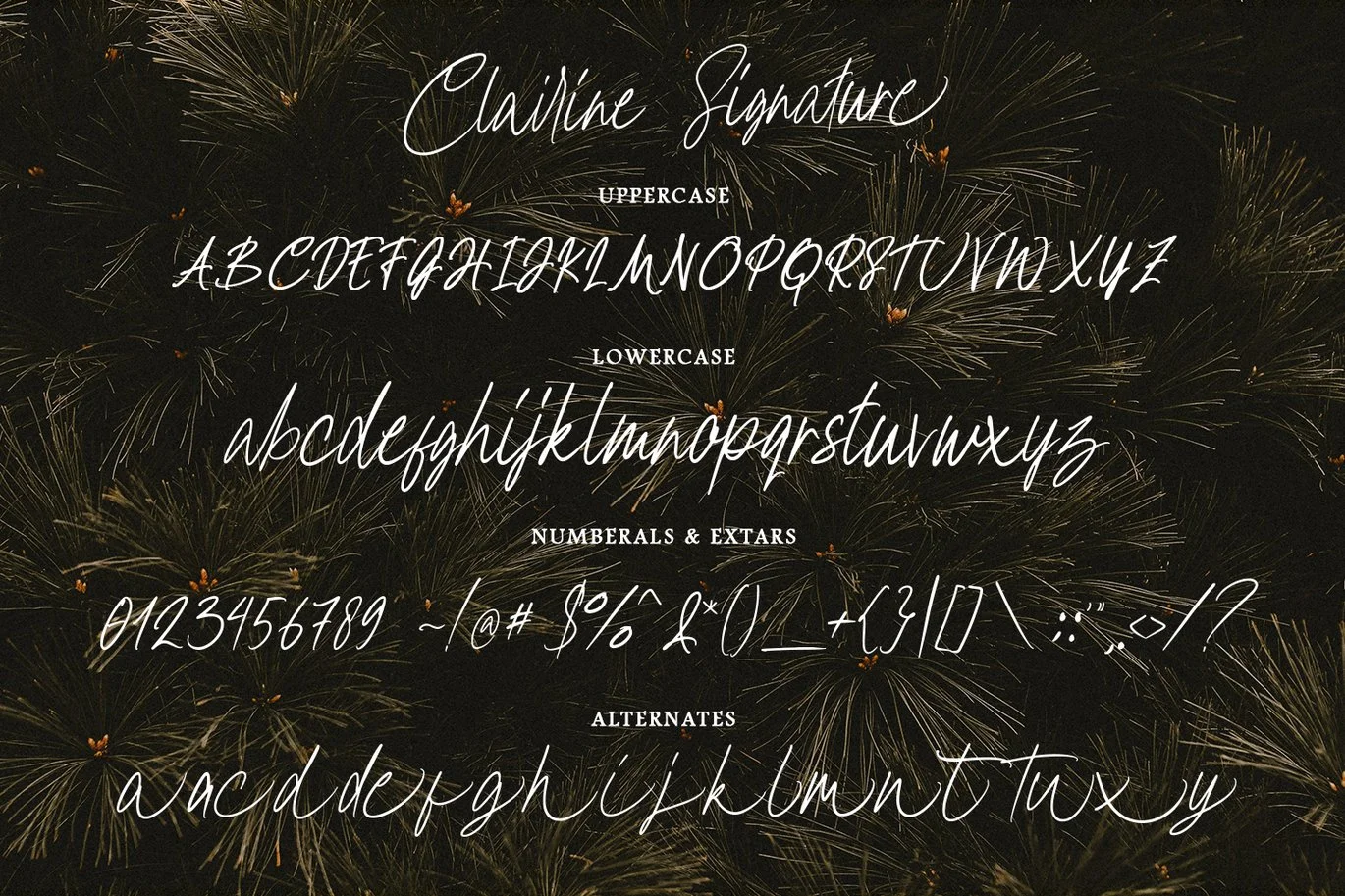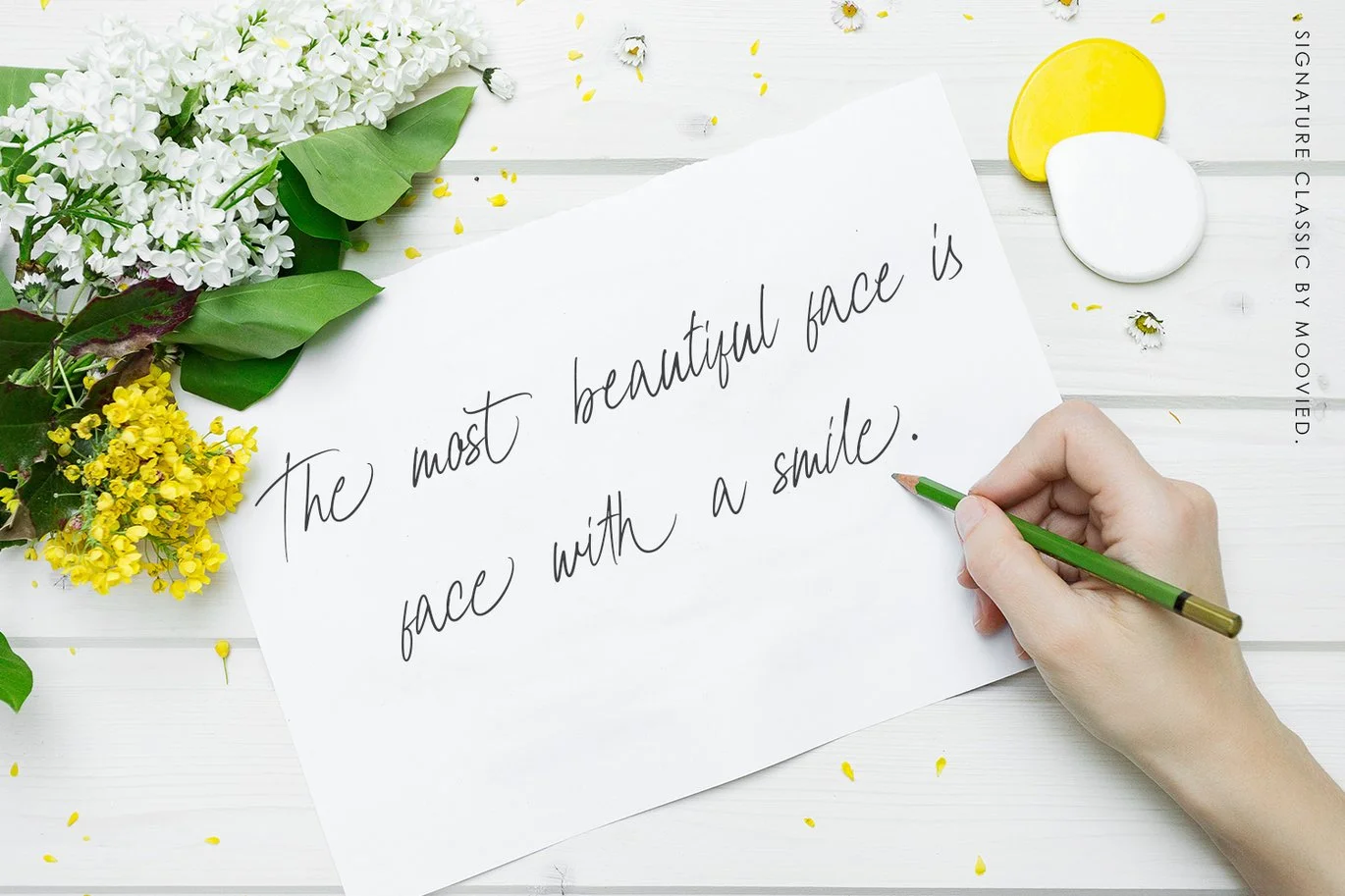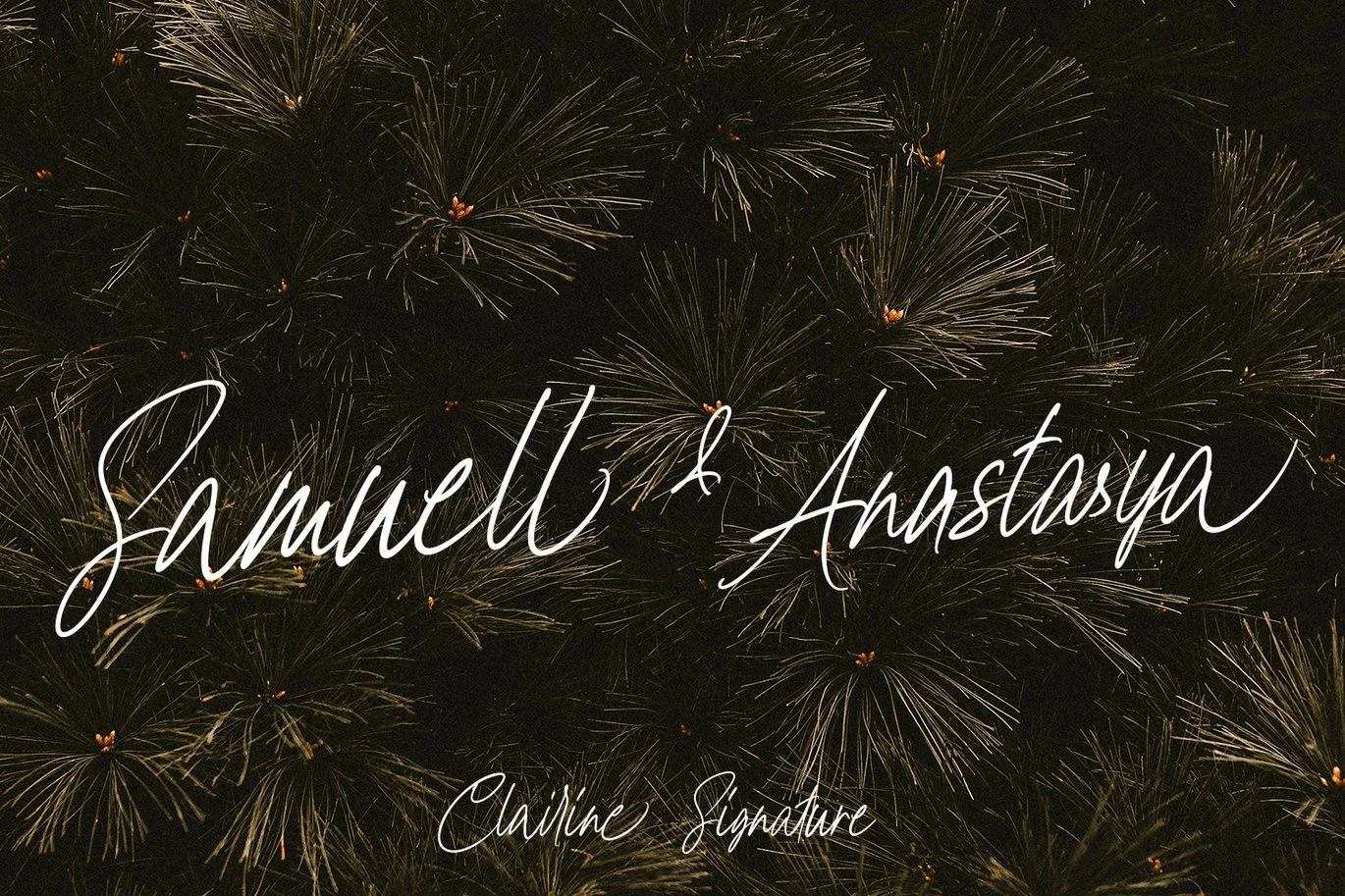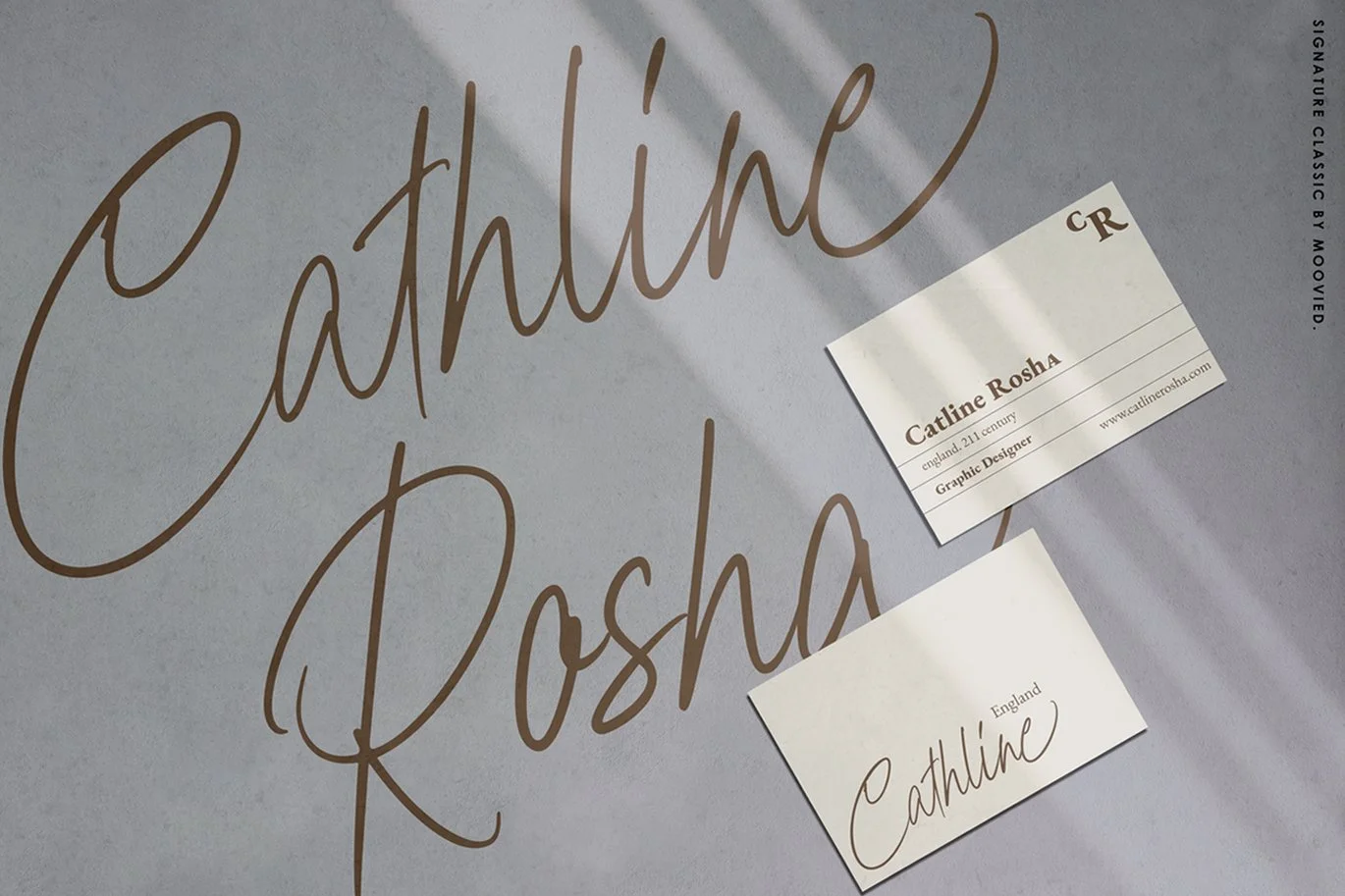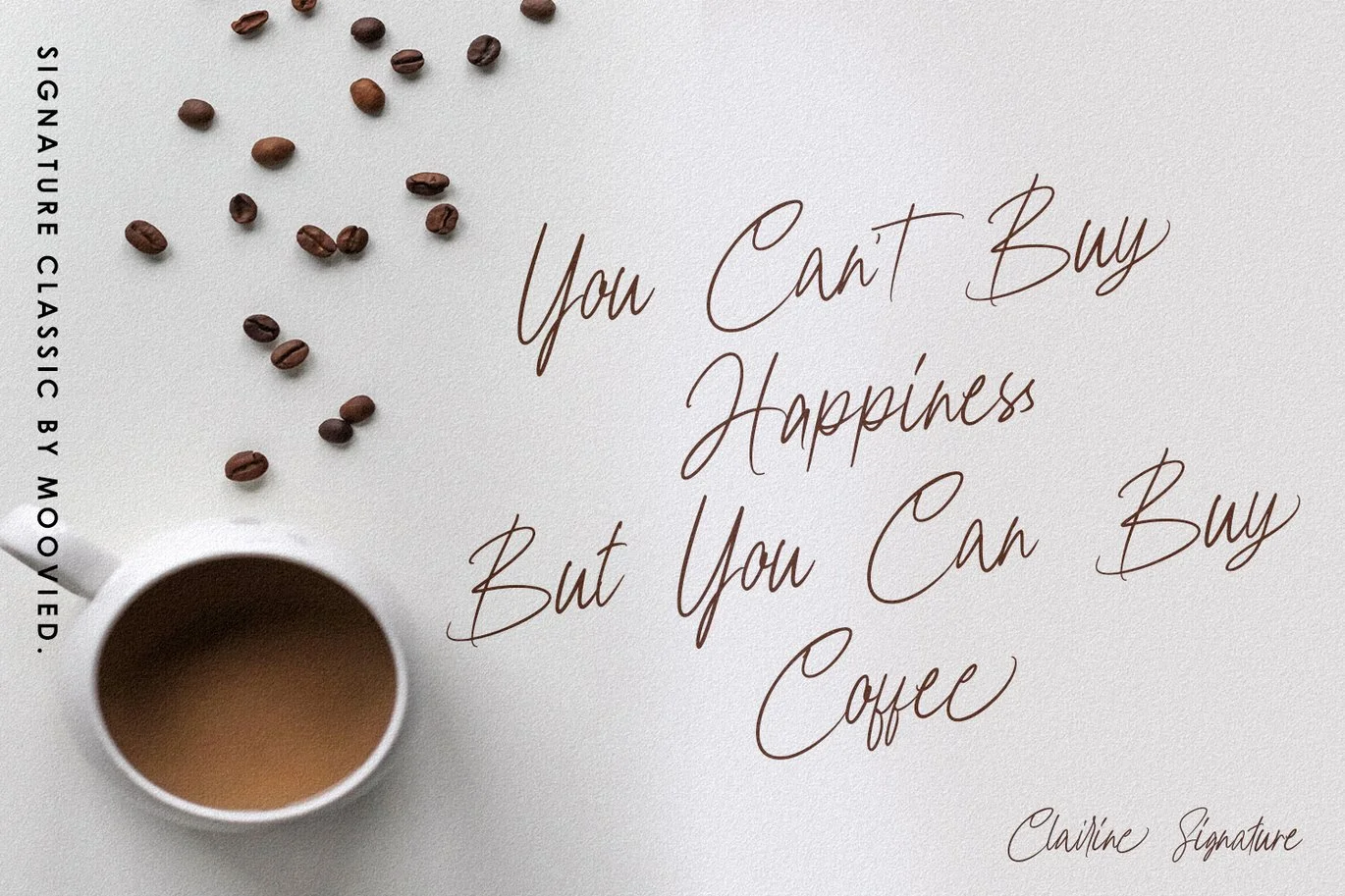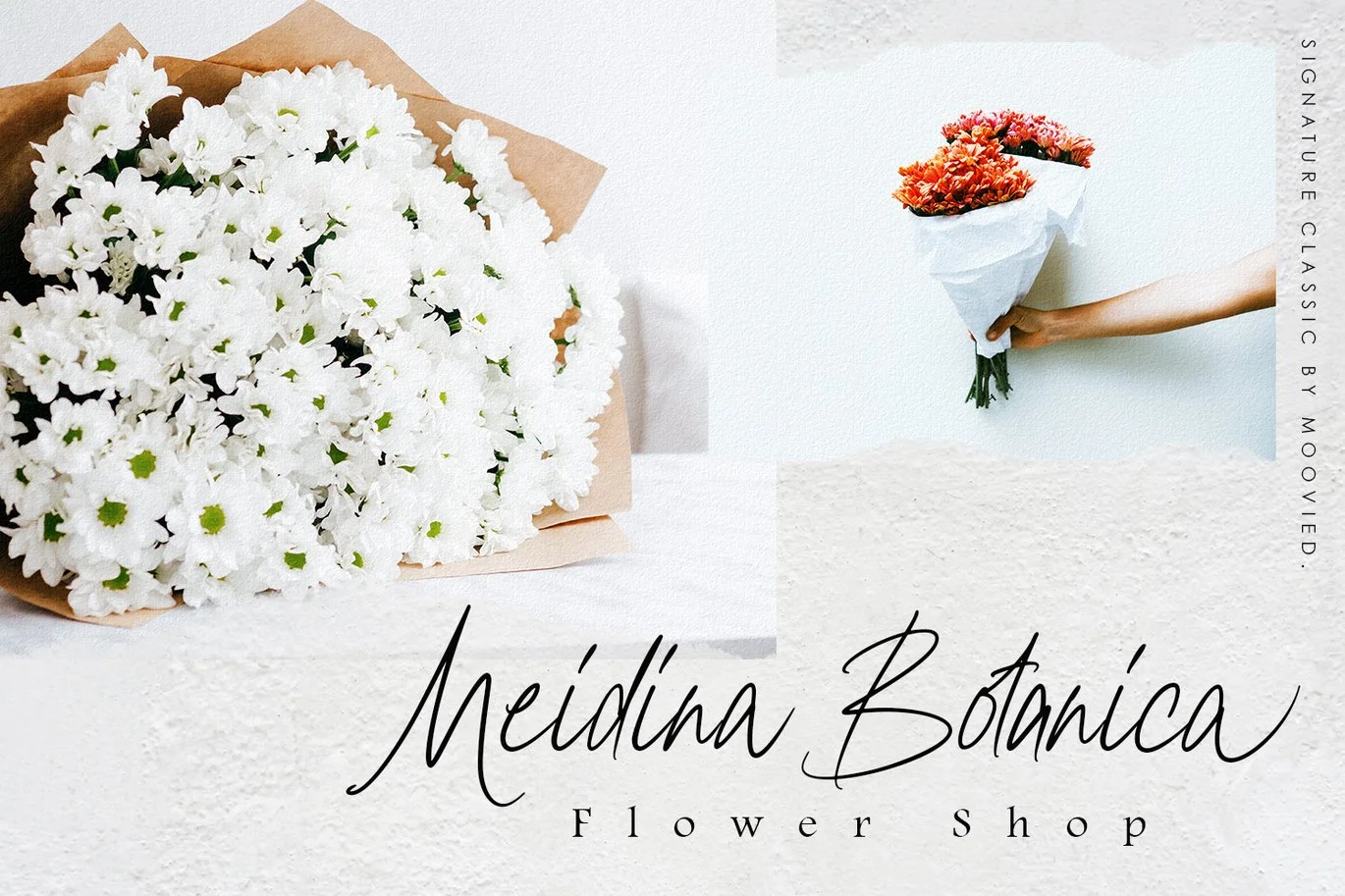
Clairine Signature Font
The Clairine Signature Font excels in refined design applications including elegant feminine branding, boutique beauty logos, sophisticated wedding invitations, luxury skincare packaging, graceful business cards, artistic portfolios, delicate greeting cards, chic social media graphics, premium fashion labels, and refined marketing materials. Its graceful script style makes it perfect for projects requiring feminine elegance that communicates sophistication and establishes intimate connections with audiences seeking beautiful, personalized design experiences with timeless charm.
What makes the Clairine Signature Font truly exciting is its masterful combination of delicate femininity with confident signature presence. The font features flowing, interconnected letterforms with gentle curves and refined flourishes that create a distinctly graceful appearance. Each character displays exceptional craftsmanship with smooth transitions, elegant proportions, and sophisticated details that give text a beautiful, hand-lettered quality. The font's feminine sophistication and harmonious rhythm create an atmosphere of grace while maintaining approachable warmth and authentic personality.
The Clairine Signature Font family typically includes regular weight with extensive character coverage, featuring uppercase and lowercase letters, numerals, punctuation marks, and international characters. The typeface often incorporates stylistic alternates, contextual ligatures, and decorative swashes that enhance its signature elegance. These additional glyphs provide designers with creative options to customize text appearance and achieve more natural-looking feminine handwriting that reflects the font's graceful and sophisticated character.
This beautiful signature font captivates audiences through its remarkable ability to convey both elegance and approachability in perfect harmony. Unlike rigid digital fonts that lack personal touch, Clairine Signature Font maintains the organic flow and intimate quality of genuine handwriting while ensuring professional results across various applications. The font's feminine character makes it ideal for beauty brands, wedding professionals, and lifestyle businesses where elegance and personal connection are essential for building trust and emotional engagement.
The Clairine Signature Font presents designers with an outstanding opportunity to incorporate sophisticated femininity into their creative projects. From luxury beauty brands to intimate lifestyle designs, this font delivers the elegant signature aesthetic that resonates with audiences who appreciate refined beauty and personal touch. Its timeless appeal ensures your designs remain sophisticated and relevant while the signature styling adds distinctive grace that reflects feminine elegance in any application requiring beautiful, sophisticated typography solutions.